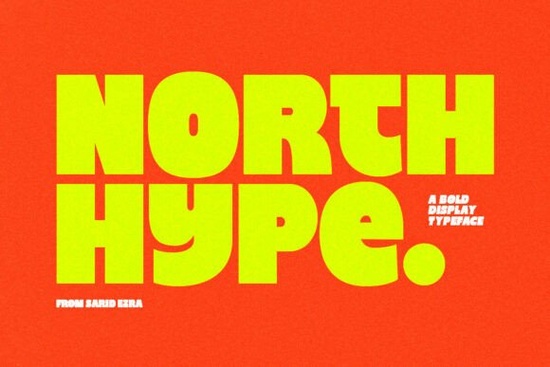
If you're looking for a bold, attention-grabbing display font that stands out on apparel, posters, or social media without feeling overdesigned or dated you’ll want to take a close look at North Hype Font. It’s not just another thick sans-serif. Its extra-thick block letterforms, ultra-tight kerning, and intentionally uneven baseline give it real texture and attitude like something pulled from a photocopied 1990s skate zine, but redrawn with precision for today’s digital workflows.
Who is North Hype actually made for?
This isn’t a font for body text or delicate branding. It’s built for moments where you need instant visual impact: a limited-run t-shirt logo, an event flyer for an underground DJ set, or the headline on a small-batch energy drink can. If your work lives at the intersection of streetwear, indie publishing, or experimental digital art, North Hype Font fits naturally not as decoration, but as part of the message itself.
Designers who’ve used it report it works especially well when paired with minimal supporting type. Think clean, neutral sans-serifs like Inter or DM Sans for captions or fine print. That contrast lets North Hype do the heavy lifting without overwhelming the layout.
How does it compare to other high-impact display fonts?
It shares some DNA with fonts like Sunday Swing both are expressive and designed for visibility but where Sunday Swing leans into playful bounce and hand-drawn rhythm, North Hype is all about weight, tension, and controlled chaos. Its ink-trapped junctions (those subtle overlaps where strokes meet) add depth and a tactile, almost physical presence something you’d notice even in a tiny Instagram Story thumbnail.
Compared to Sicko, which has a more jagged, distressed aesthetic, North Hype feels more architectural tight, intentional, and structurally confident. And unlike Tordeo, which uses exaggerated curves and fluid motion, North Hype stays rigid and grounded. That makes it easier to scale consistently across print and screen, especially for POD sellers needing reliable results on everything from tote bags to vinyl stickers.
One practical note: because of its tight spacing and heavy forms, avoid using it below 36pt in print or 48px online unless you’re going for deliberate distortion. At smaller sizes, the details start to blur together. But that’s by design not a flaw.
Where have people successfully used it?
- Apparel logos: Small-batch streetwear brands use it for chest logos and back prints especially when they want to signal “independent” and “uncompromising” without saying a word.
- Packaging: Energy drink cans, matcha powder labels, and craft soda bottles benefit from its structural confidence helping them stand out on crowded shelves or Instagram feeds.
- Digital promotion: Music artists and collectives use it for gig posters, Bandcamp banners, and TikTok thumbnails where legibility at a glance matters more than subtlety.
- Print-on-demand: Sellers report strong performance on Redbubble and Teespring with designs that pair North Hype with simple geometric shapes or monochrome backgrounds.
- You need a display font not for paragraphs or UI, but for headlines, logos, or short impactful phrases.
- Your project benefits from strong visual personality: think streetwear, electronic music, zine culture, or bold independent branding.
- You’re comfortable pairing it with simpler, neutral typefaces to balance its intensity.
If those match your needs, North Hype Font is worth trying. It’s not for every project but when it’s right, it feels unmistakably yours.